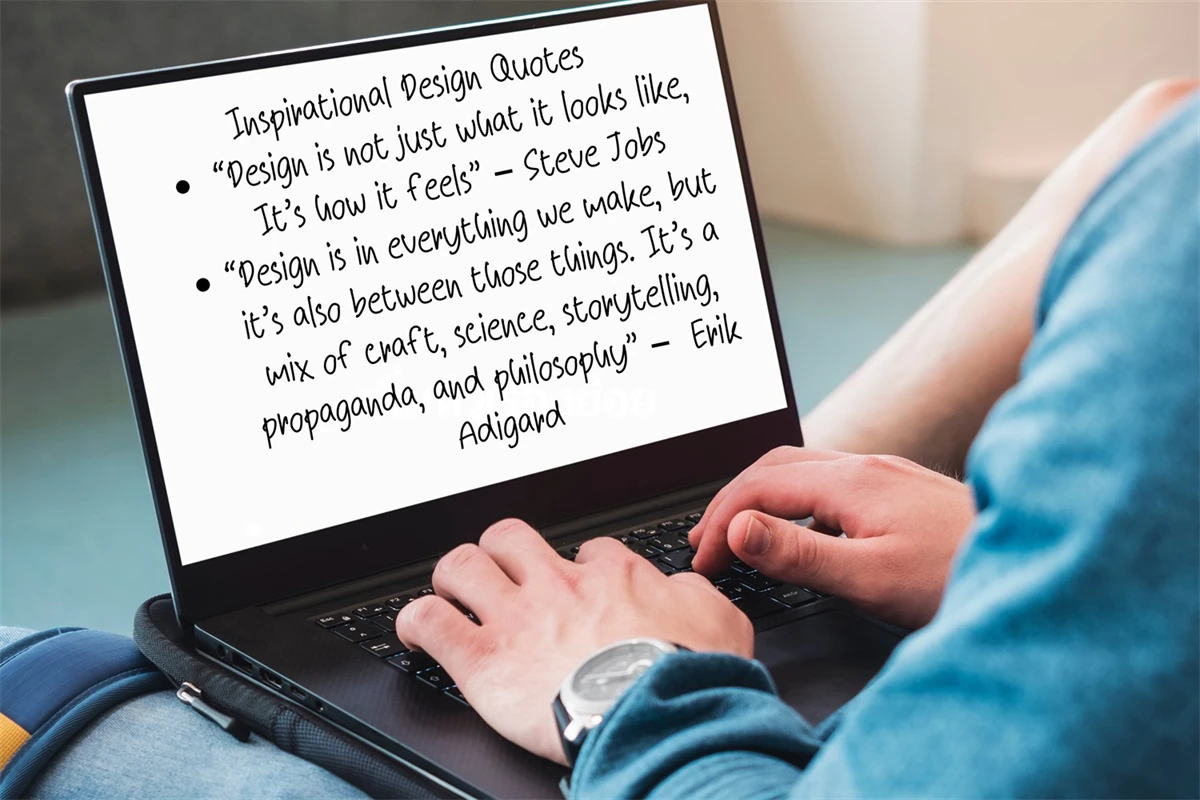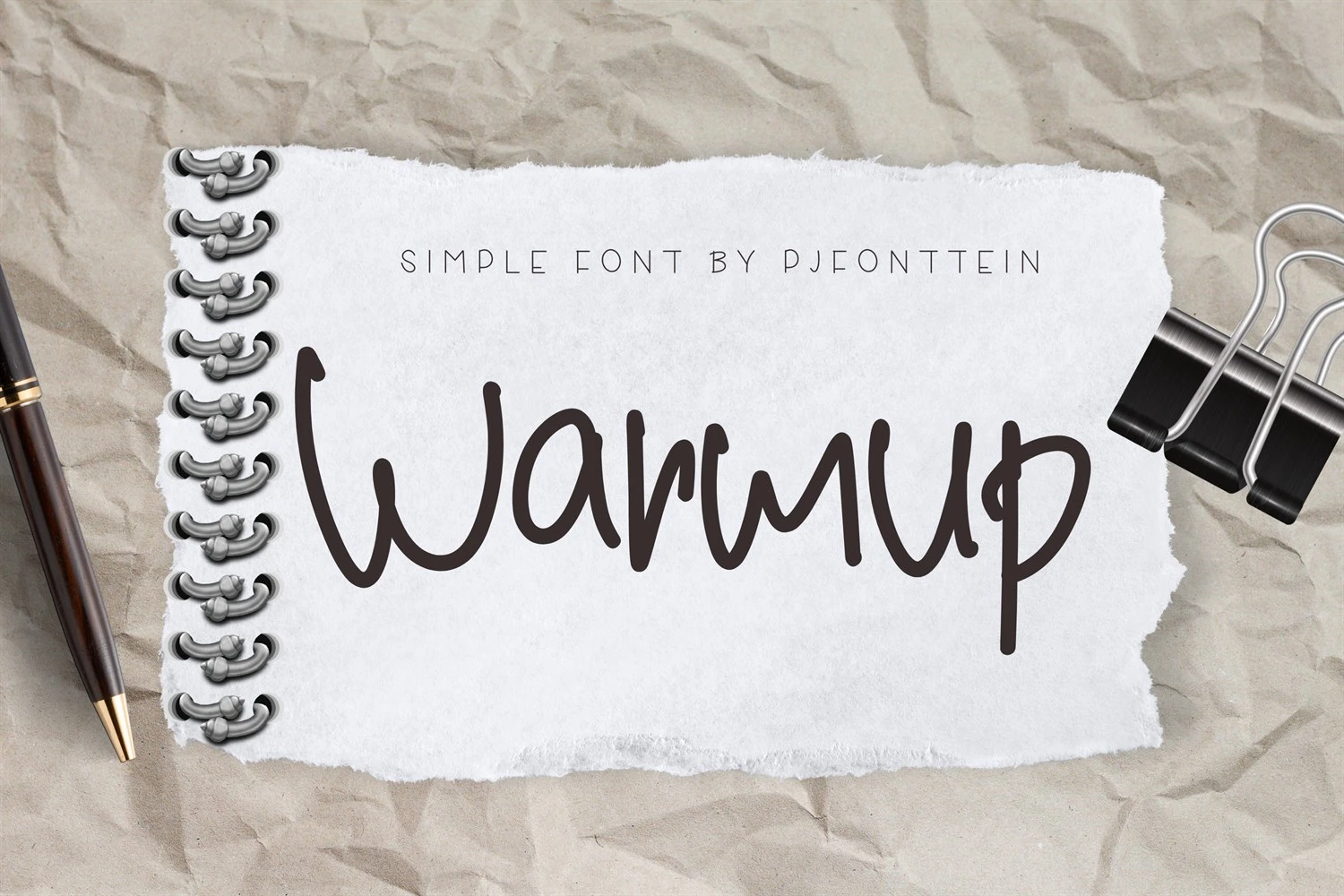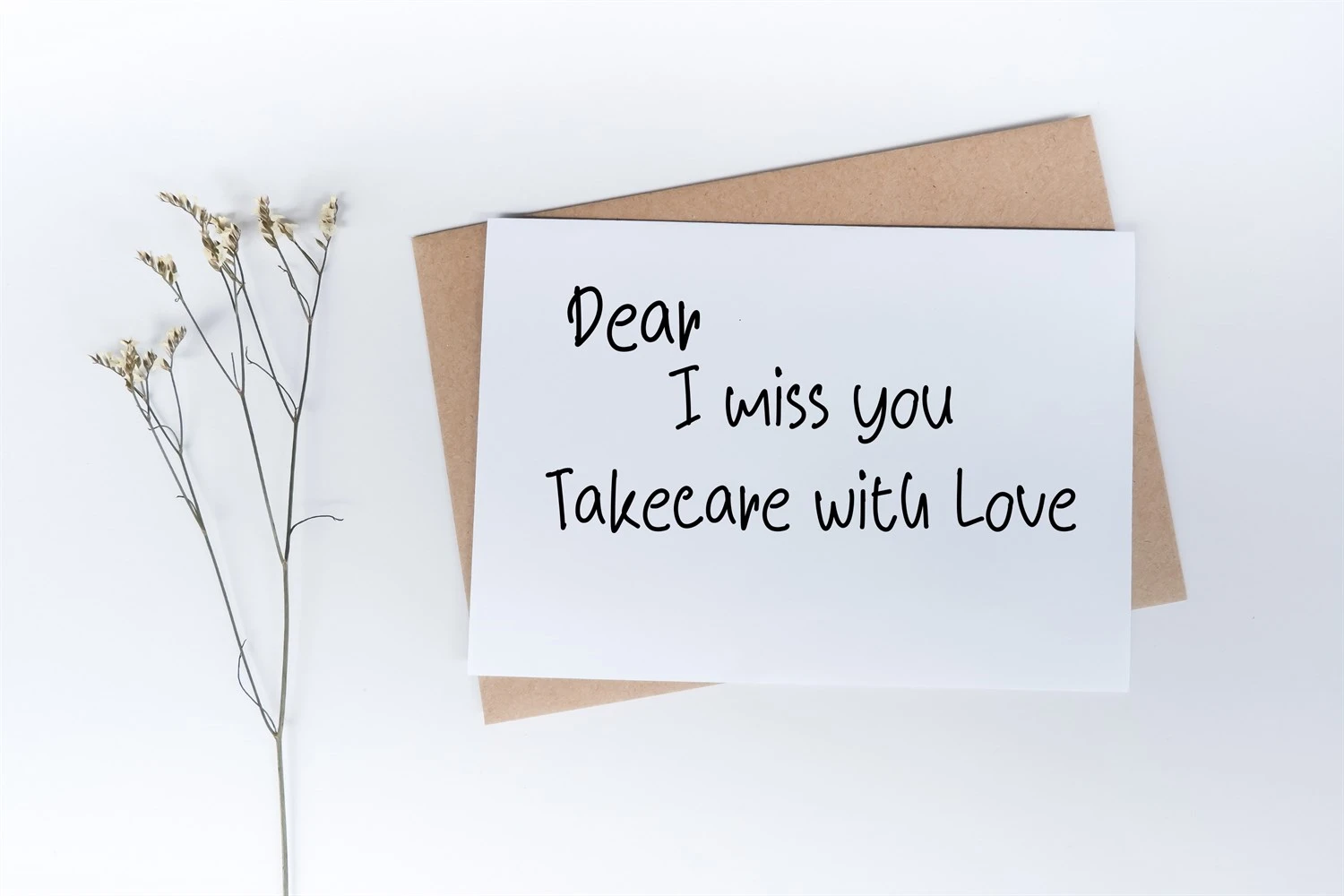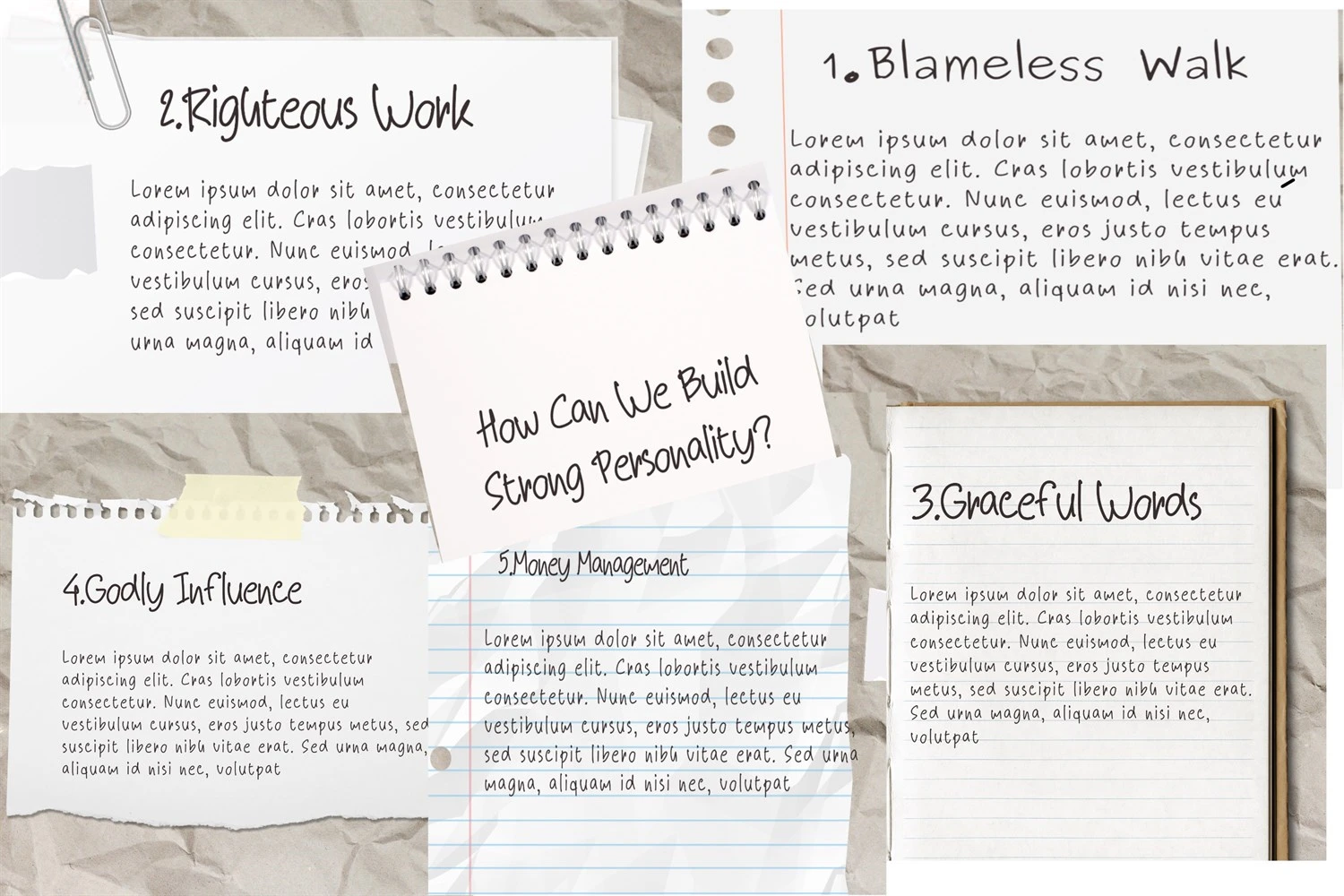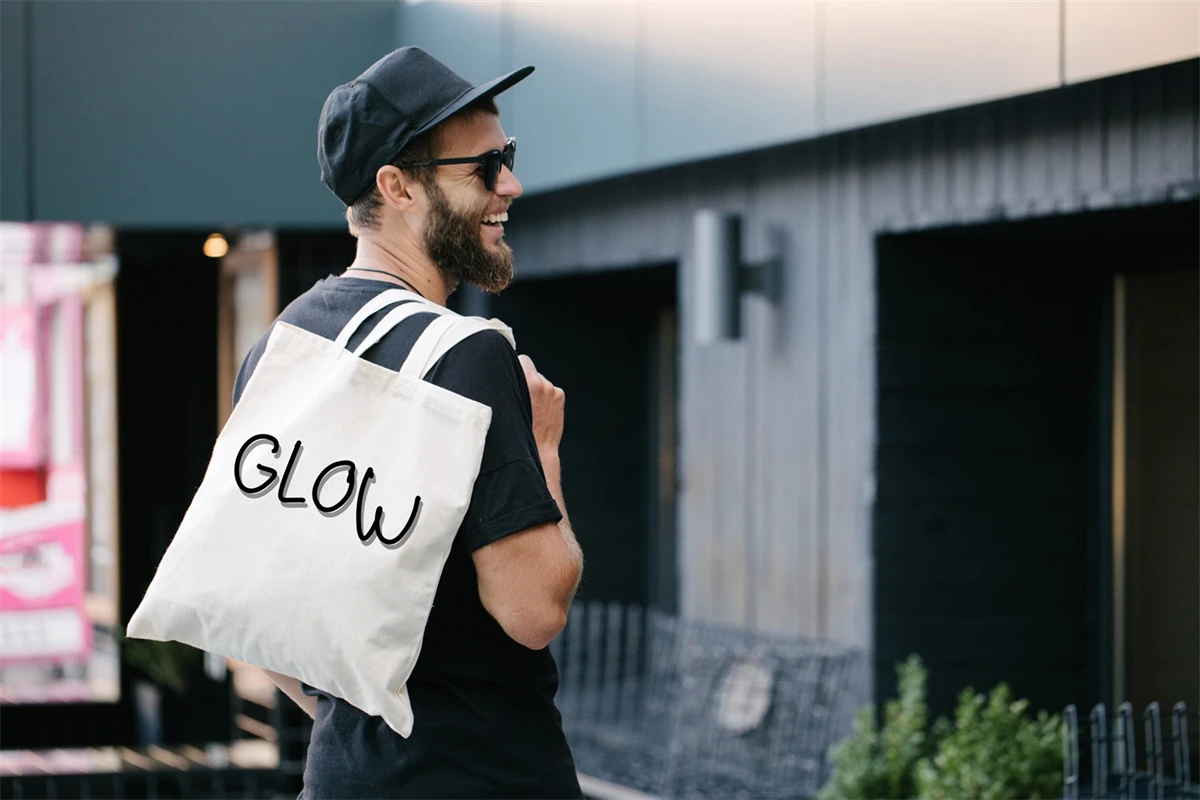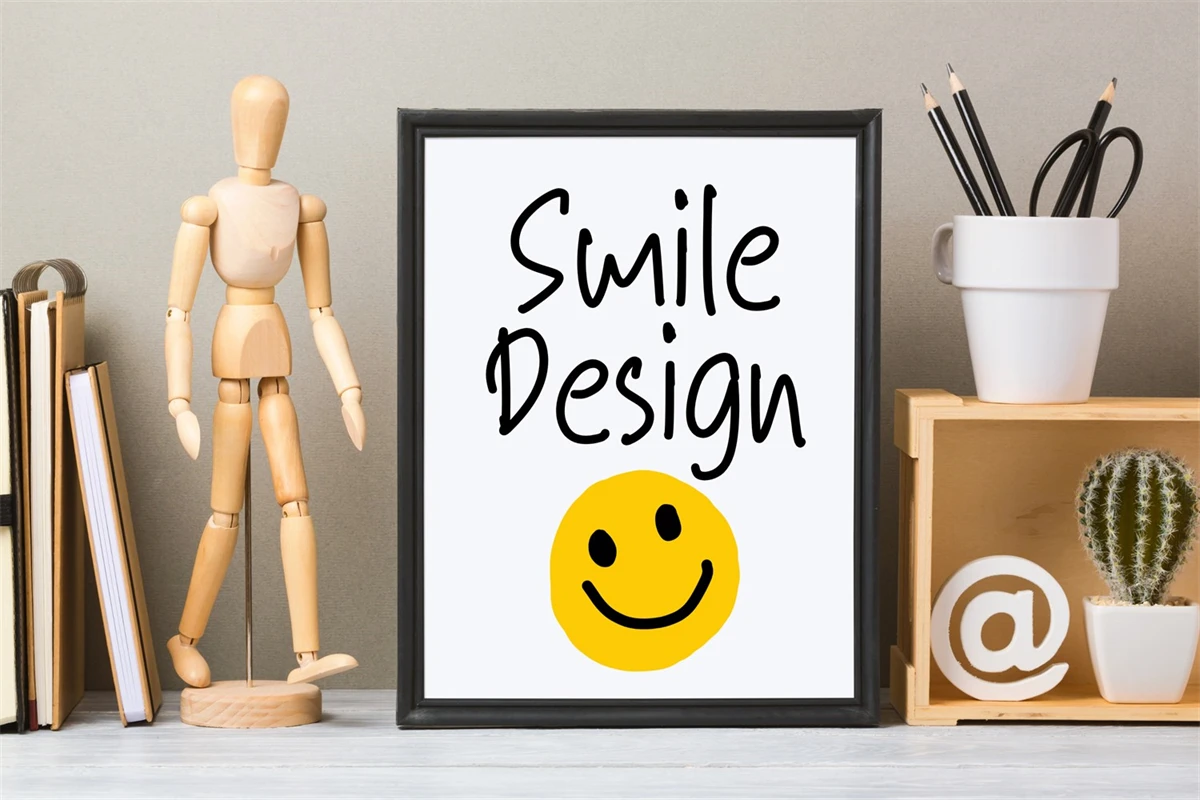
Warmup Handwriting font
A charming font for handwriting
Warmup isideal for a variety of tasks, including cricut crafts, logos, goodnotes, planners, svg files, greeting cards, Procreate, tees, posters, social media, teachers, and more.